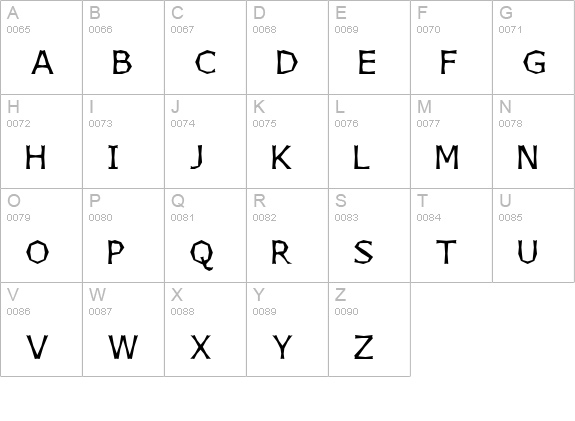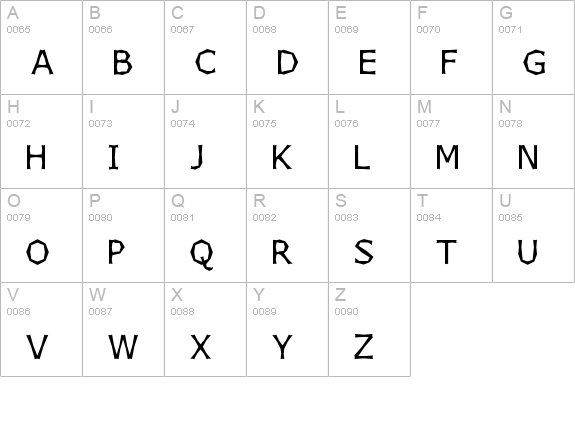
Chizzler Normal Font Details
Chizzler Normal is the standard, neutral variant in the Chizzler typeface family \xE2\x80\x94 well suited to general body text, paragraphs, and standard typographic work.